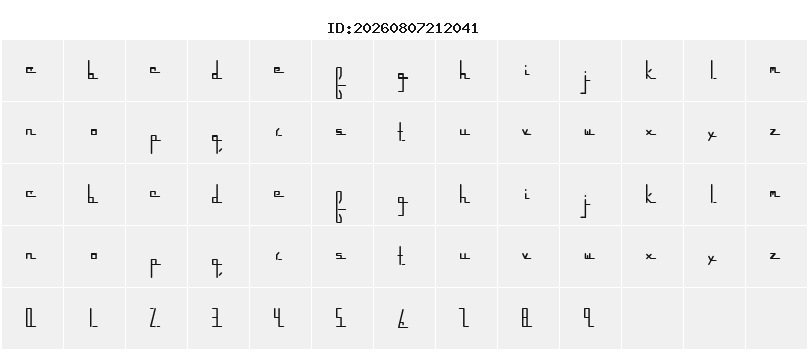
About parkwayextended.ttf
parkwayextended.ttf is a modern, elegant sans-serif font designed for ultimate readability and visual harmony. Perfect for branding, headlines, web design, and print materials.